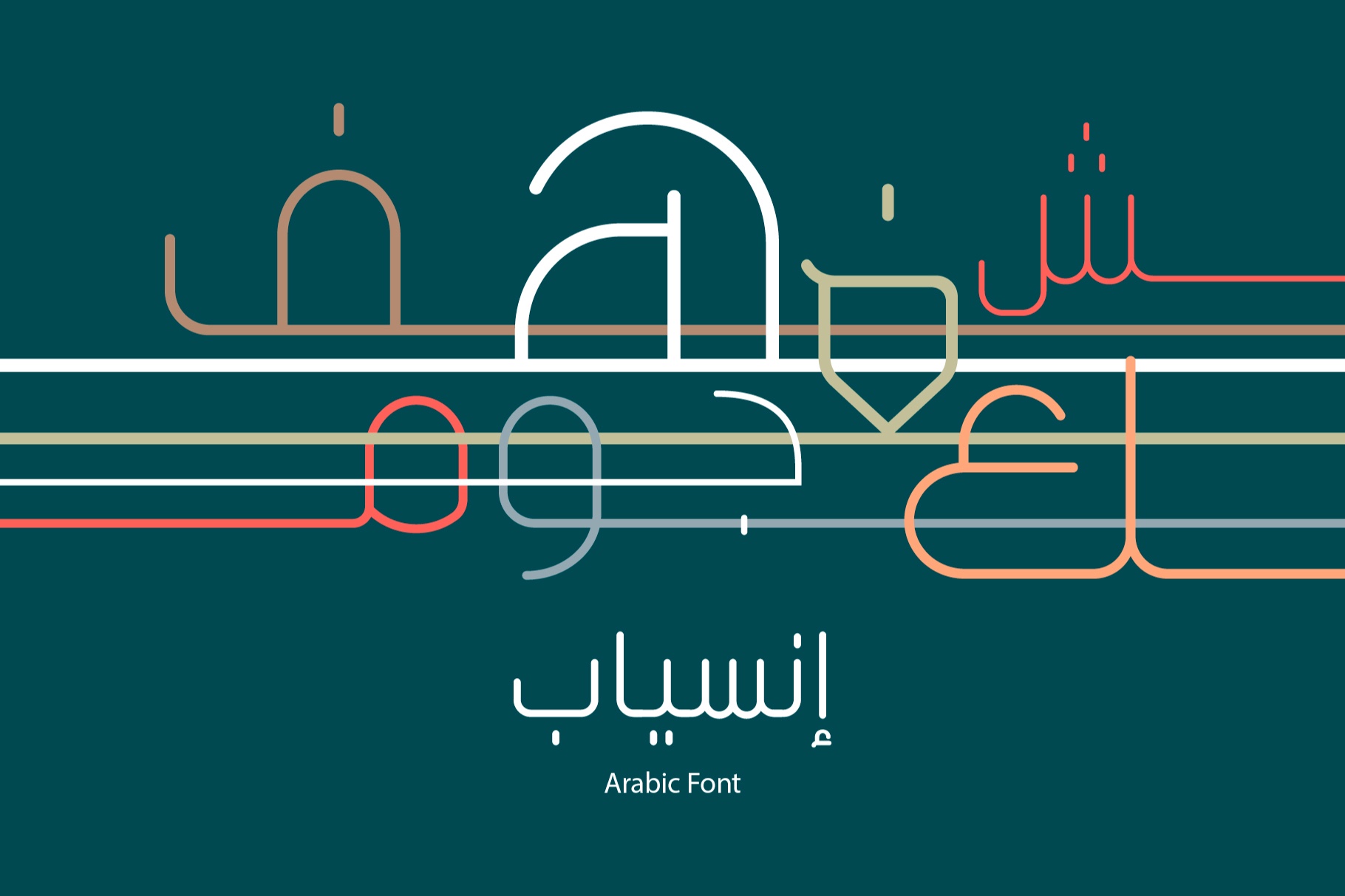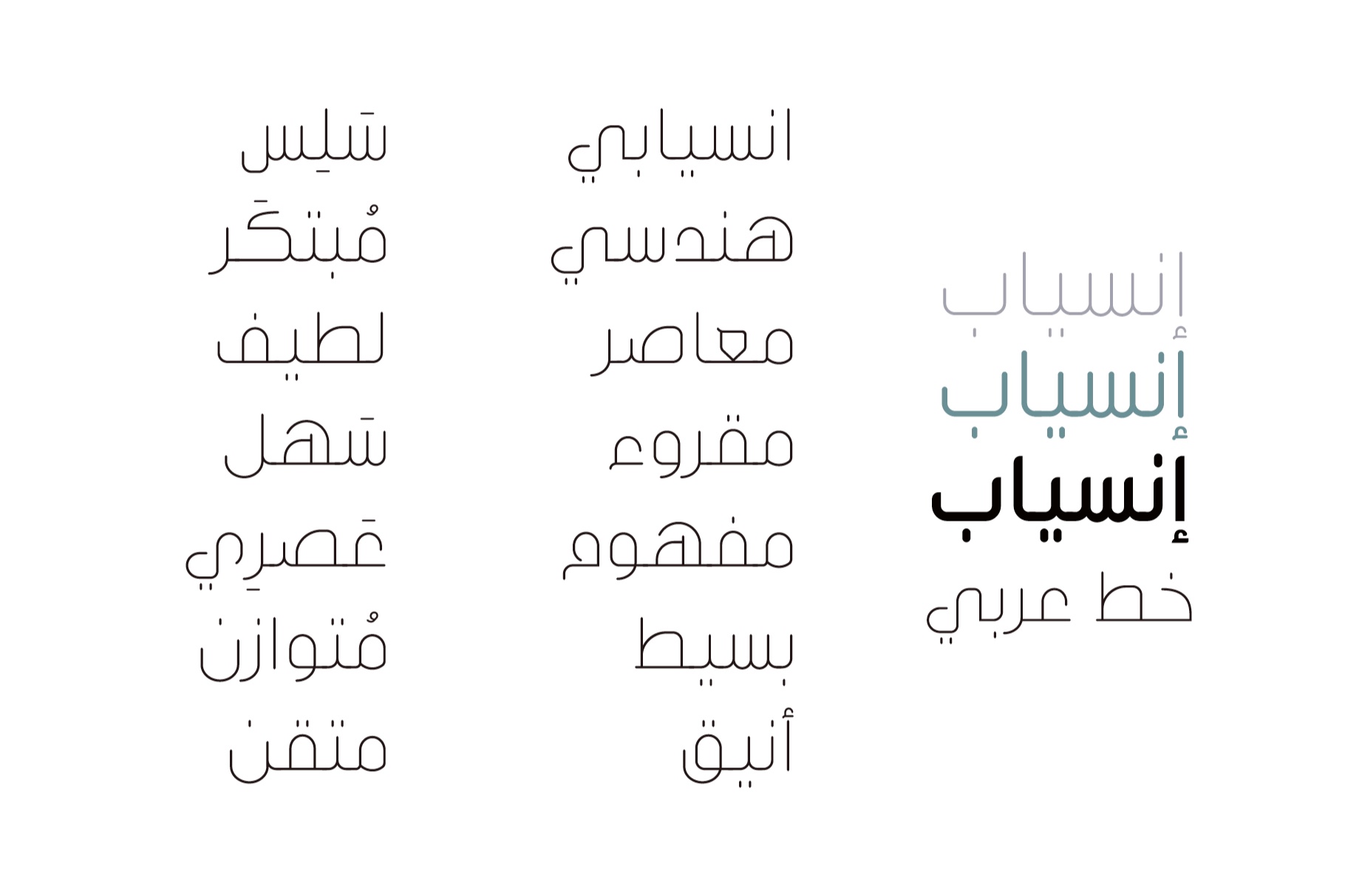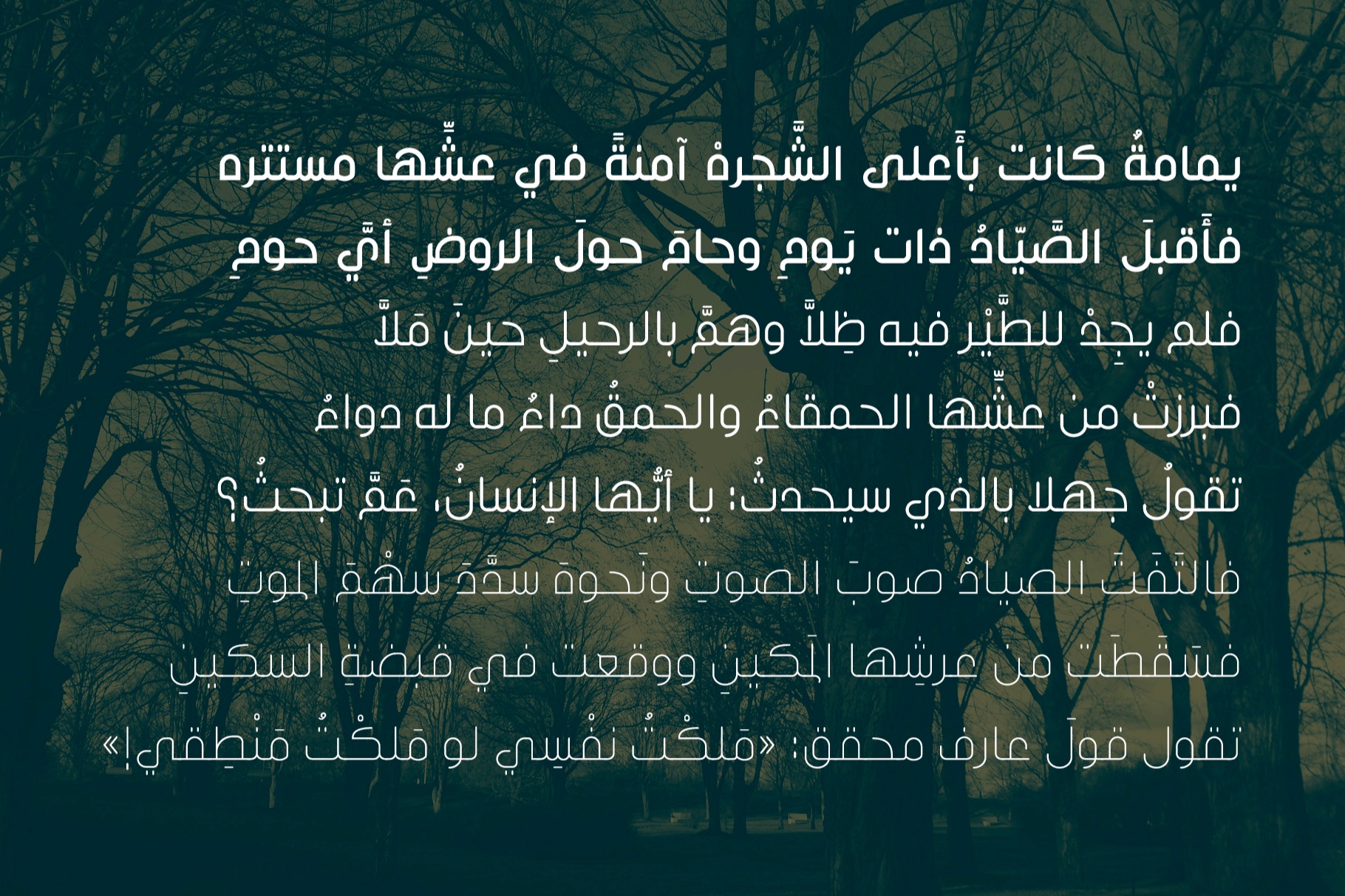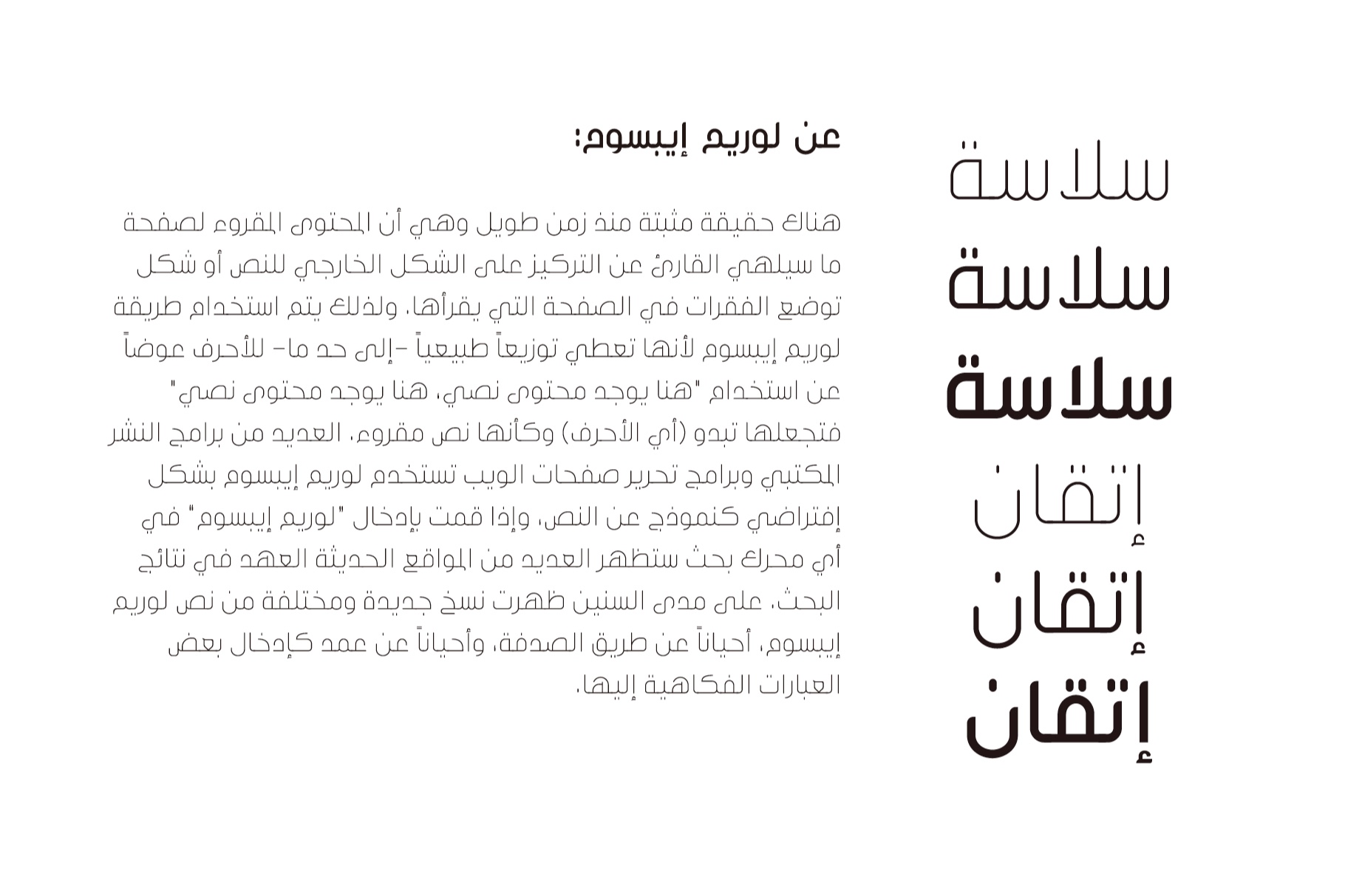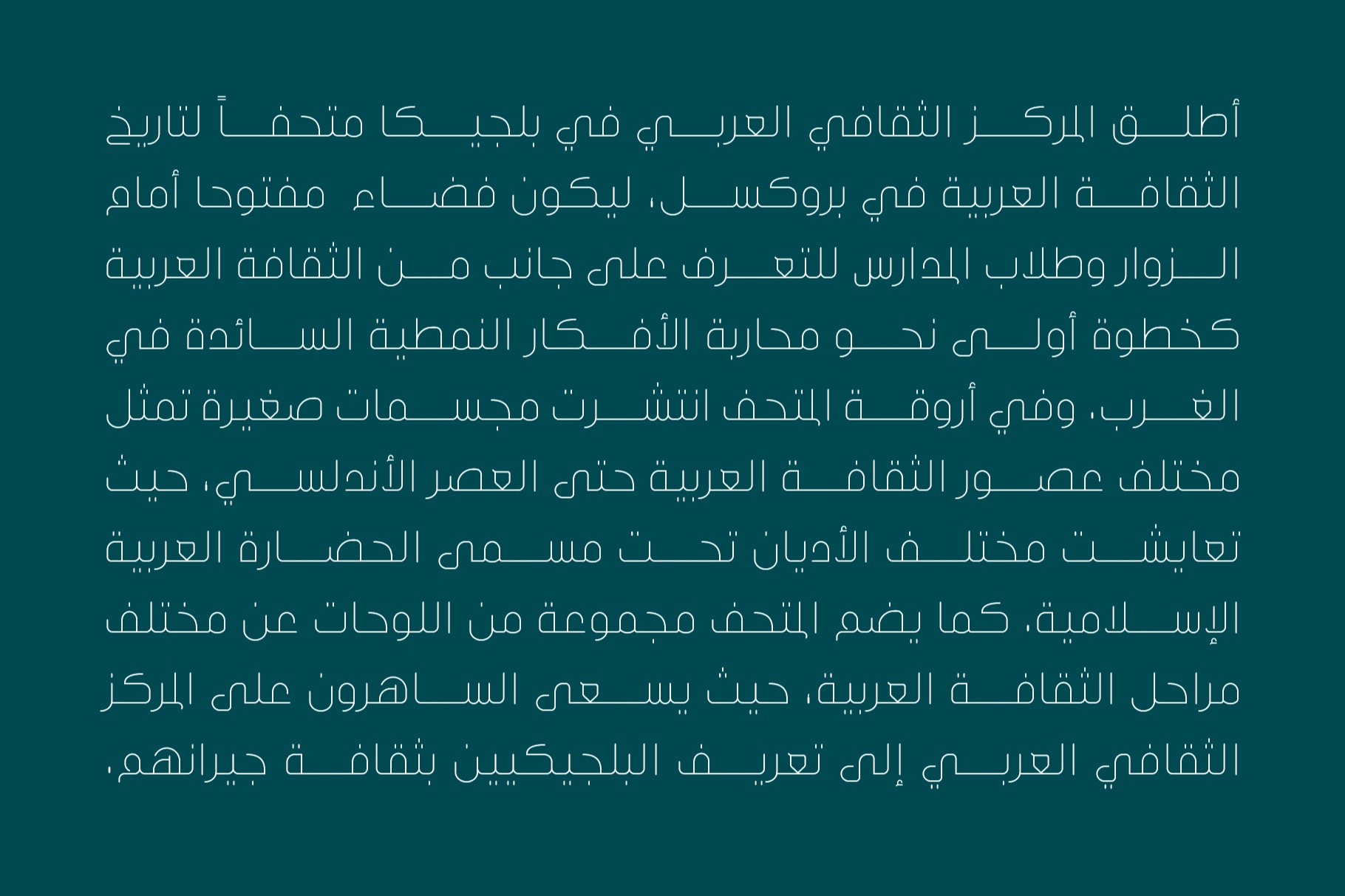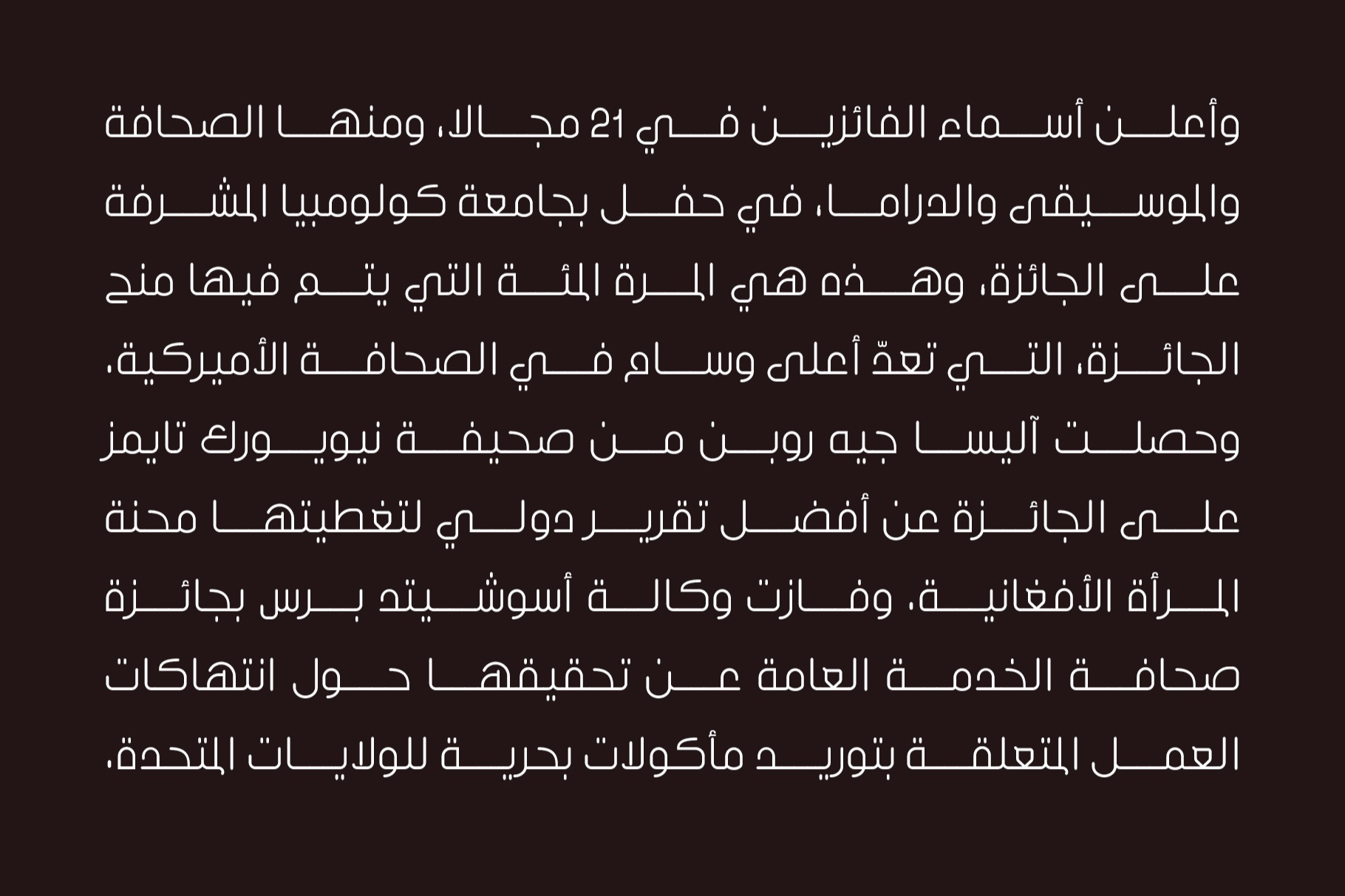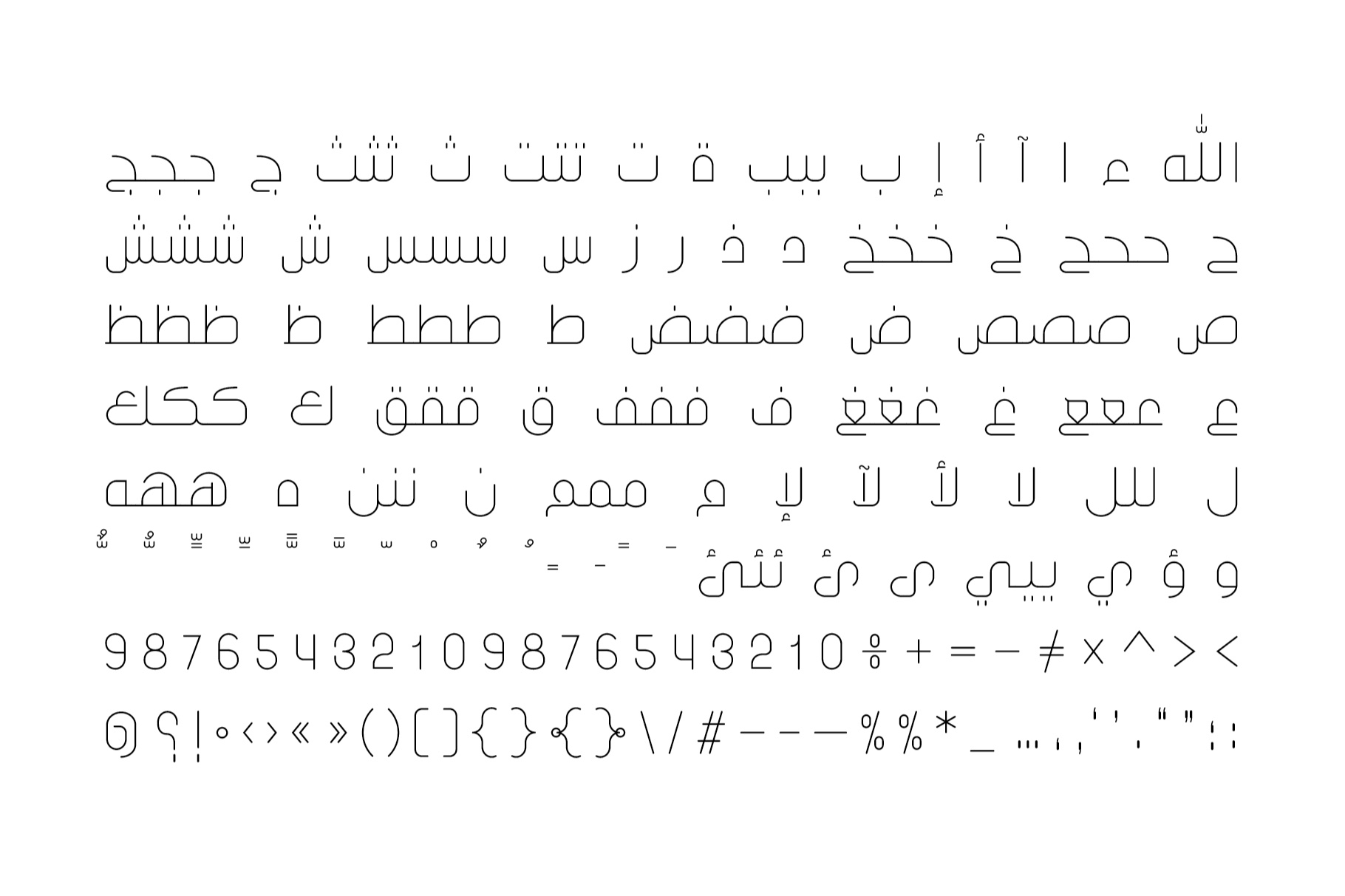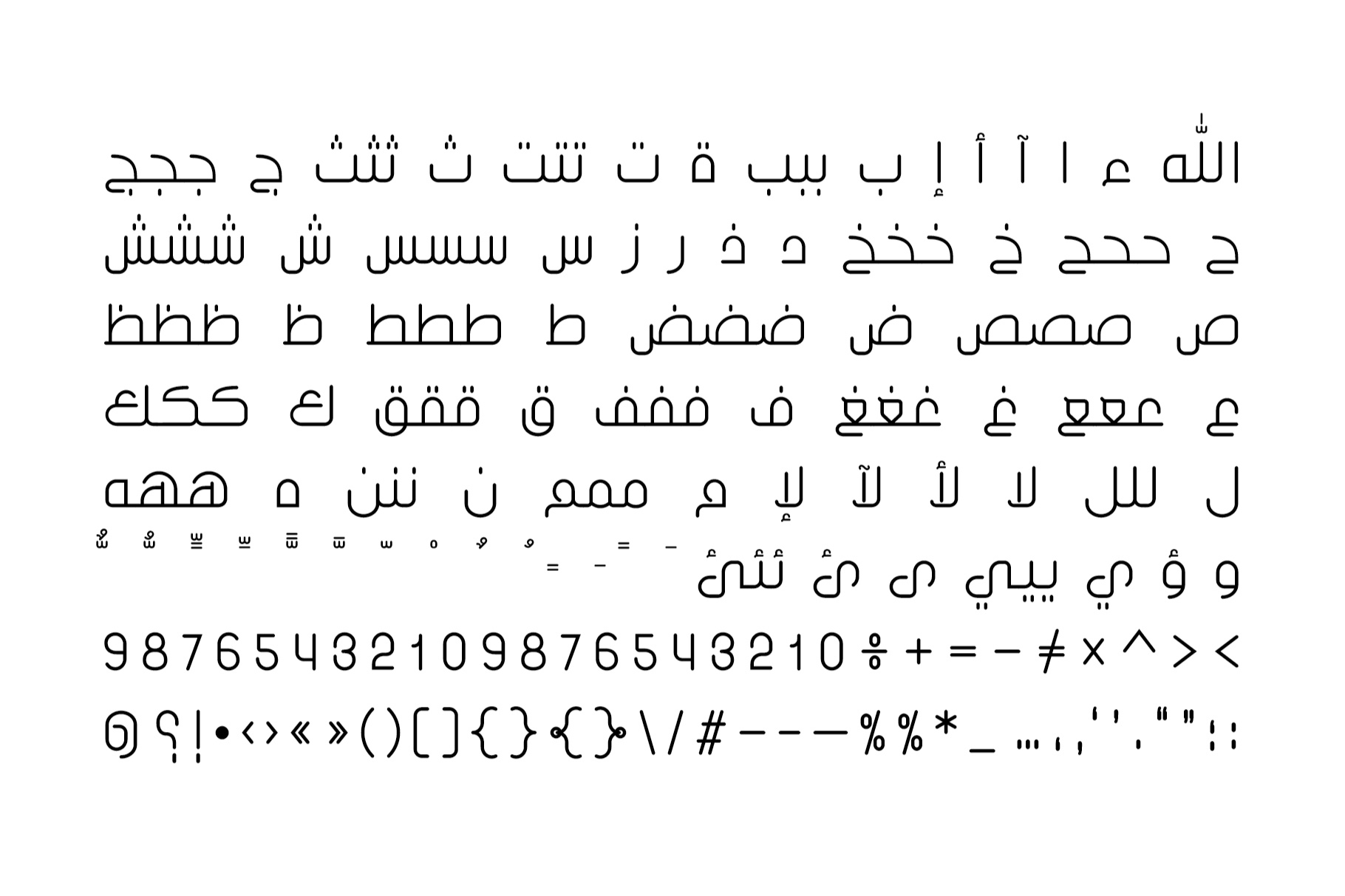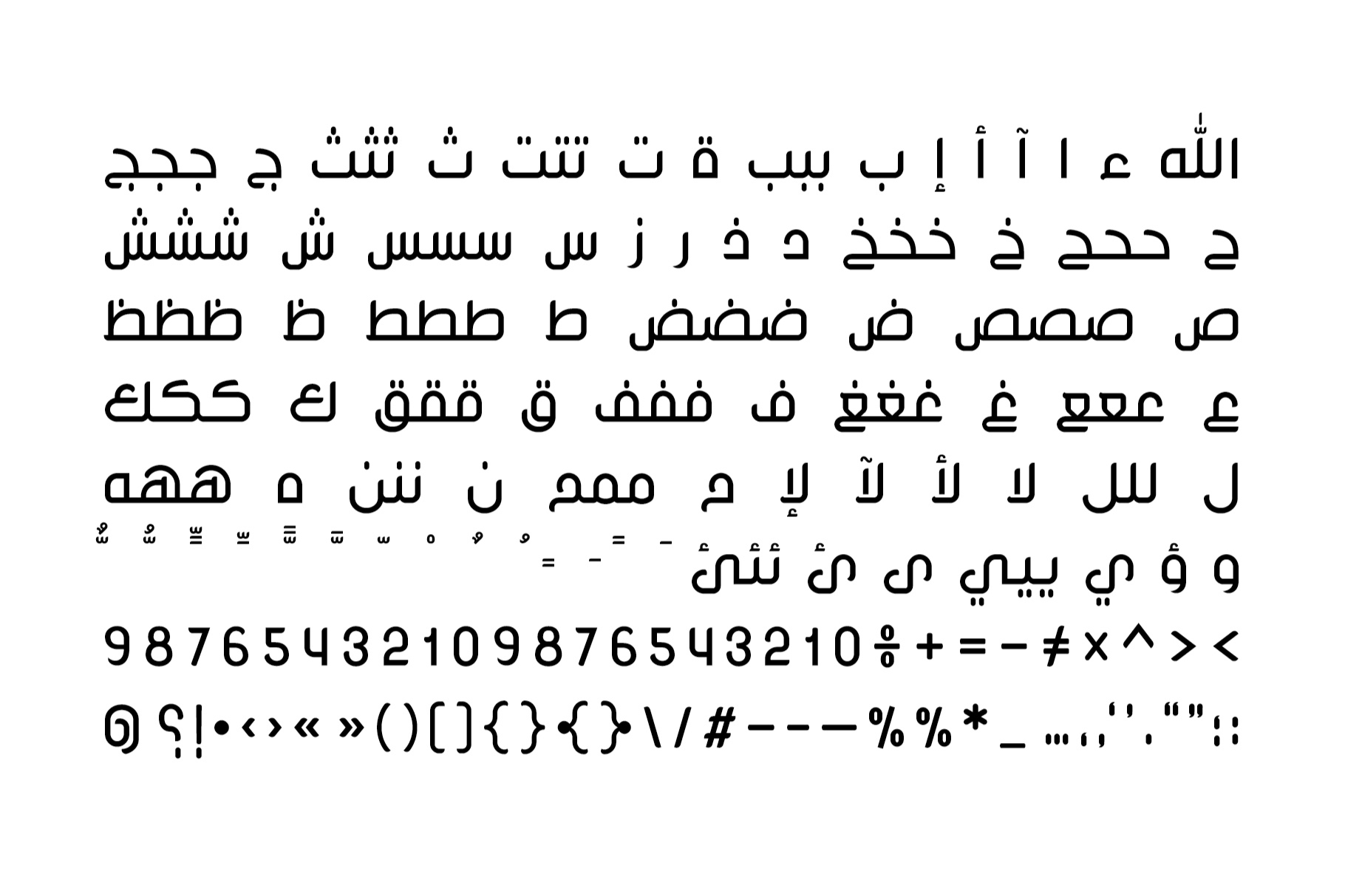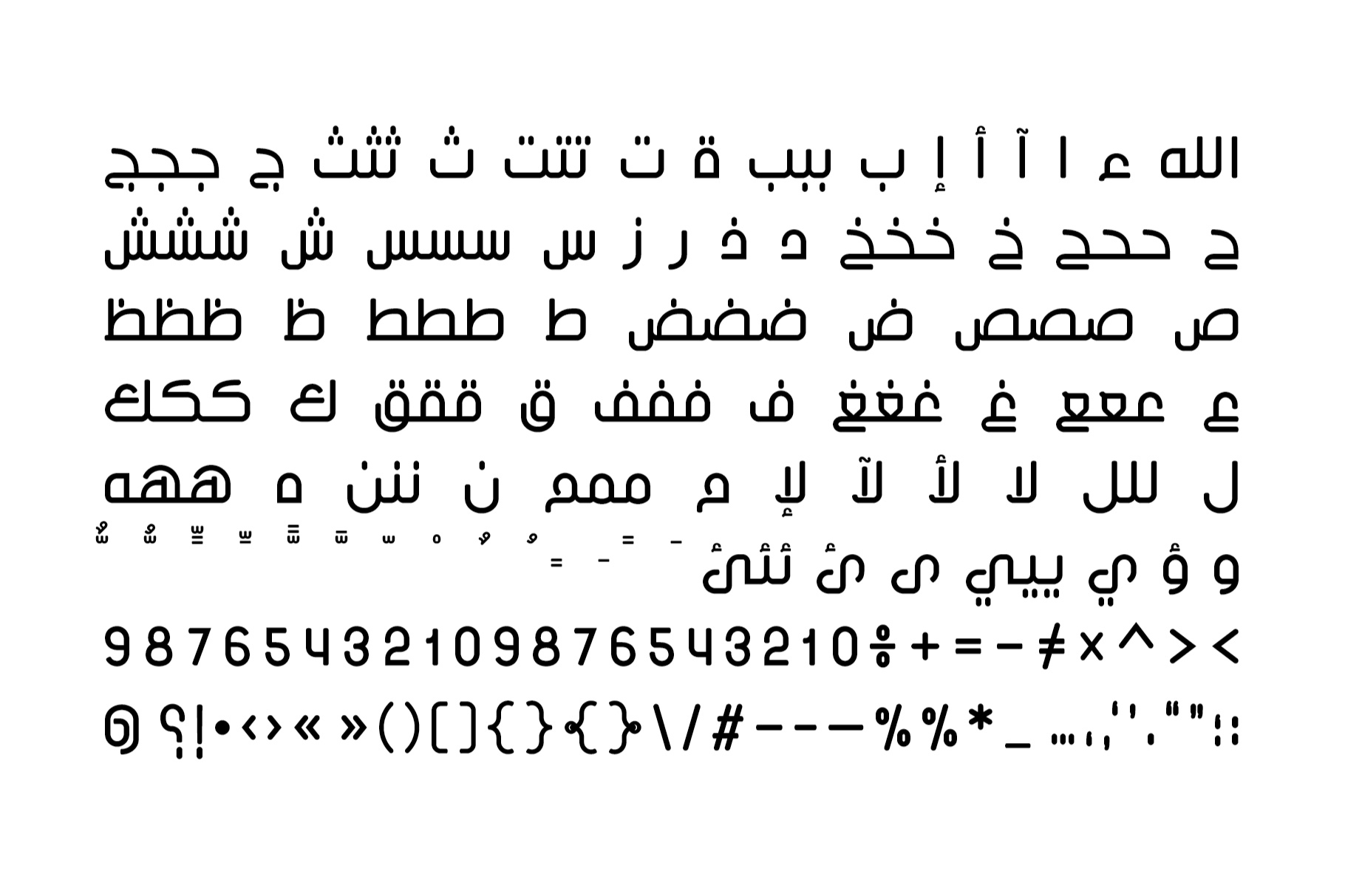
Inseyab is an Arabic typeface that fuses Kufic geometry with contemporary graphic style to build elegant letterforms. The name Inseyab comes from the Arabic word for Flow and it is believed to reflect simplicity and smoothness of movements. The typeface consists of three weights; Thin, Regular and Bold. It suits titling as well as short paragraphs for both web and print.
Light, regular, bold and rounded bold
240+ Characters